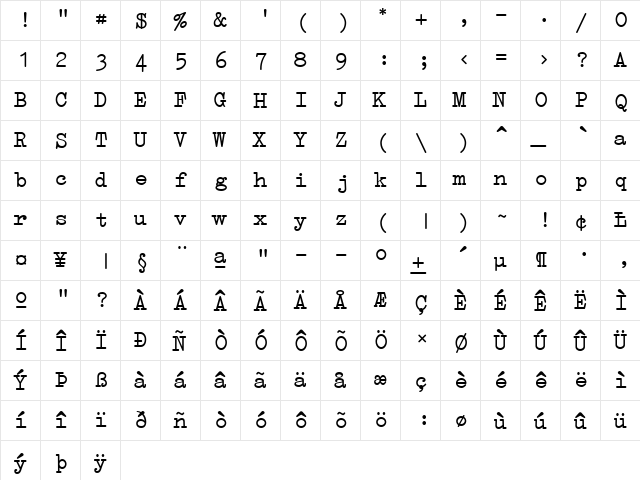
Erica Type Regular
| Foundry | Peter Wiegel |
| Designer | Peter Wiegel |
Design Context for Erica Type Typeface
Erica Type takes a measured approach to typography — its balanced proportions and neutral character make it a reliable workhorse for both digital and print work.